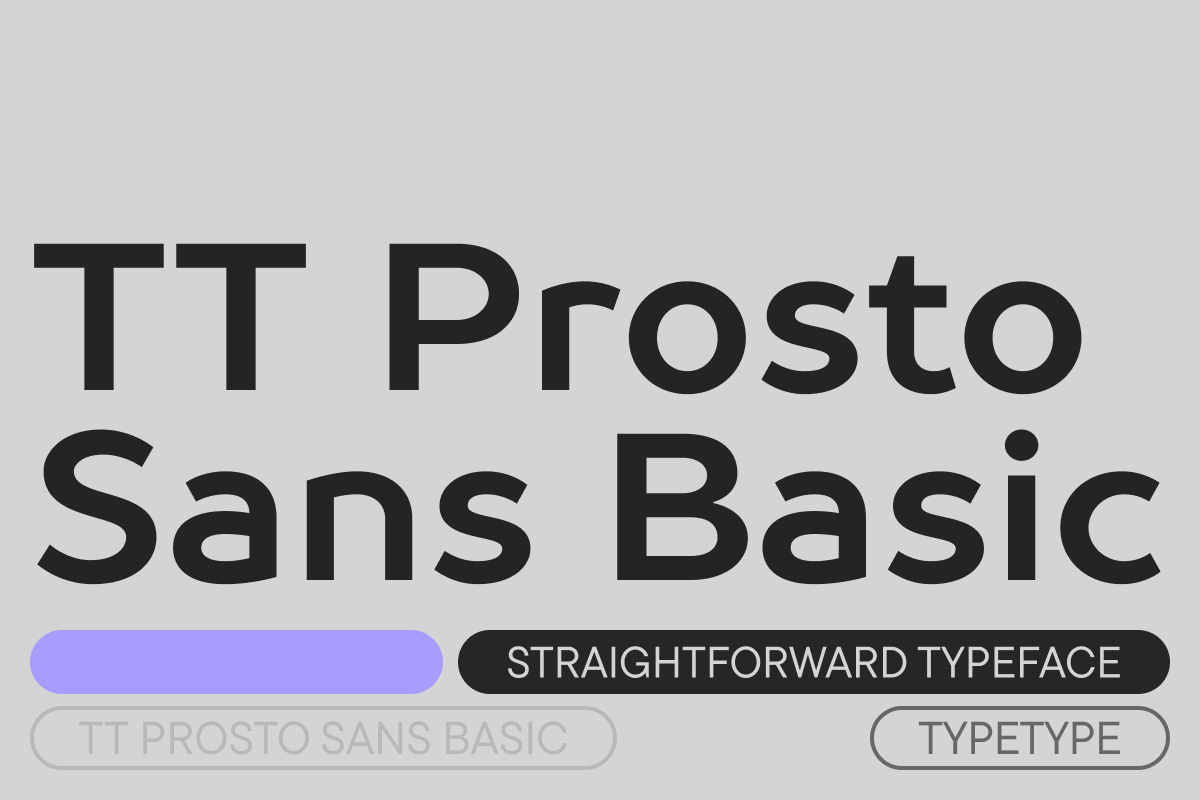
TT Prosto Sans Black
TT Prosto Sans is a font family for any occasion. You can use these typefaces almost everywhere. TT Prosto Sans is your assistant for any projects.